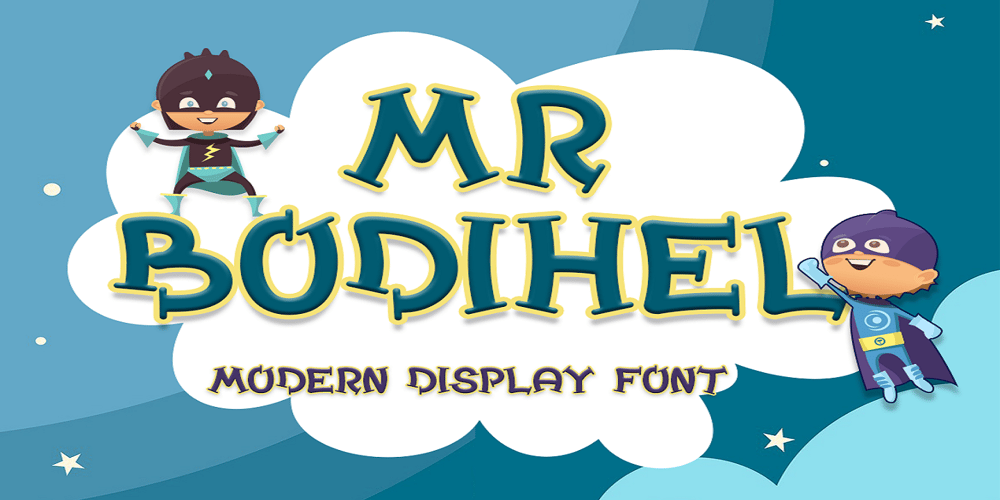
Bodihel Font Family was designed by Saiful Anwar and published by Sealoung. Bodihel contains 1 styles and family package options. Bodihel is a cute and chunky charactered display font. Add this colorful and bold display font to each of your creative ideas and notice how it makes them come alive!Get inspired by its authentic feel and use it to create gorgeous wedding invitations, beautiful stationary art, eye-catching social media posts, and cute greeting cards.I highly recommend using a program that supports OpenType features and Glyphs panels such as Adobe Illustrator, Adobe Photoshop CC, Adobe InDesign, or CorelDraw, so you can see and access all Glyph variations. FEATURE: ALL CAPSWe hope you enjoy the font, please feel free to comment if you have any thoughts or feedback. Or simply send me a PM or email me. Thank you!